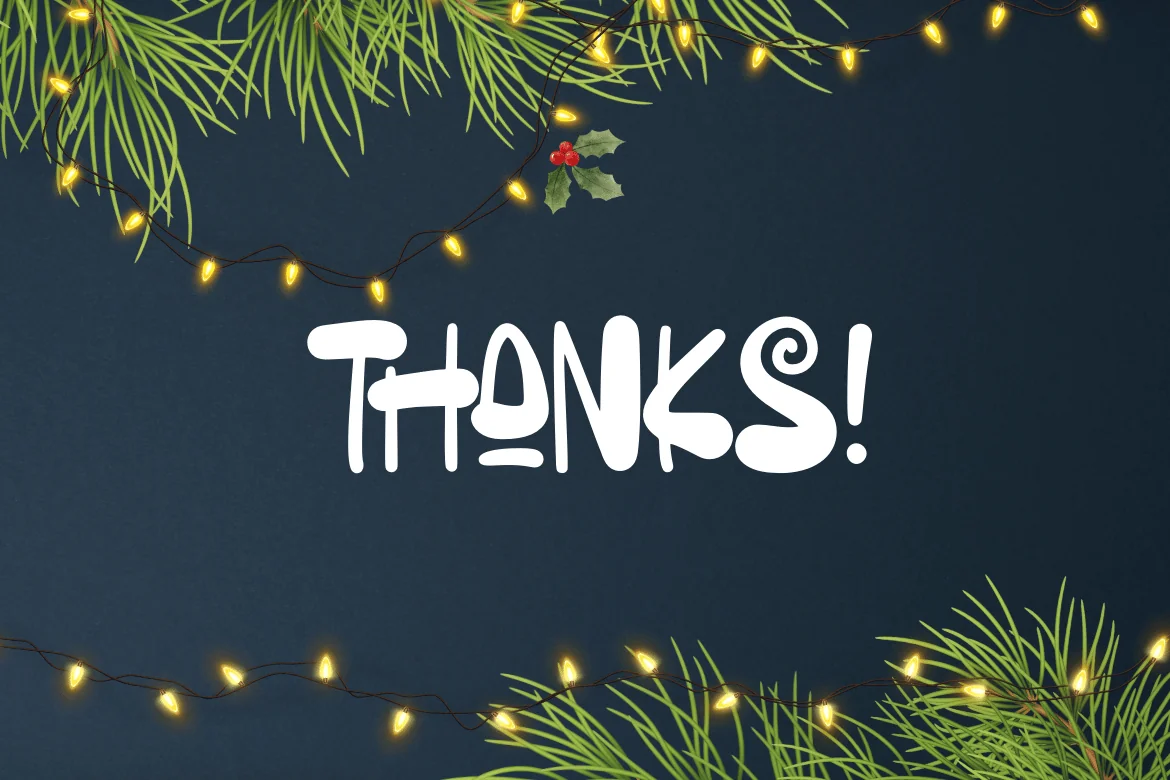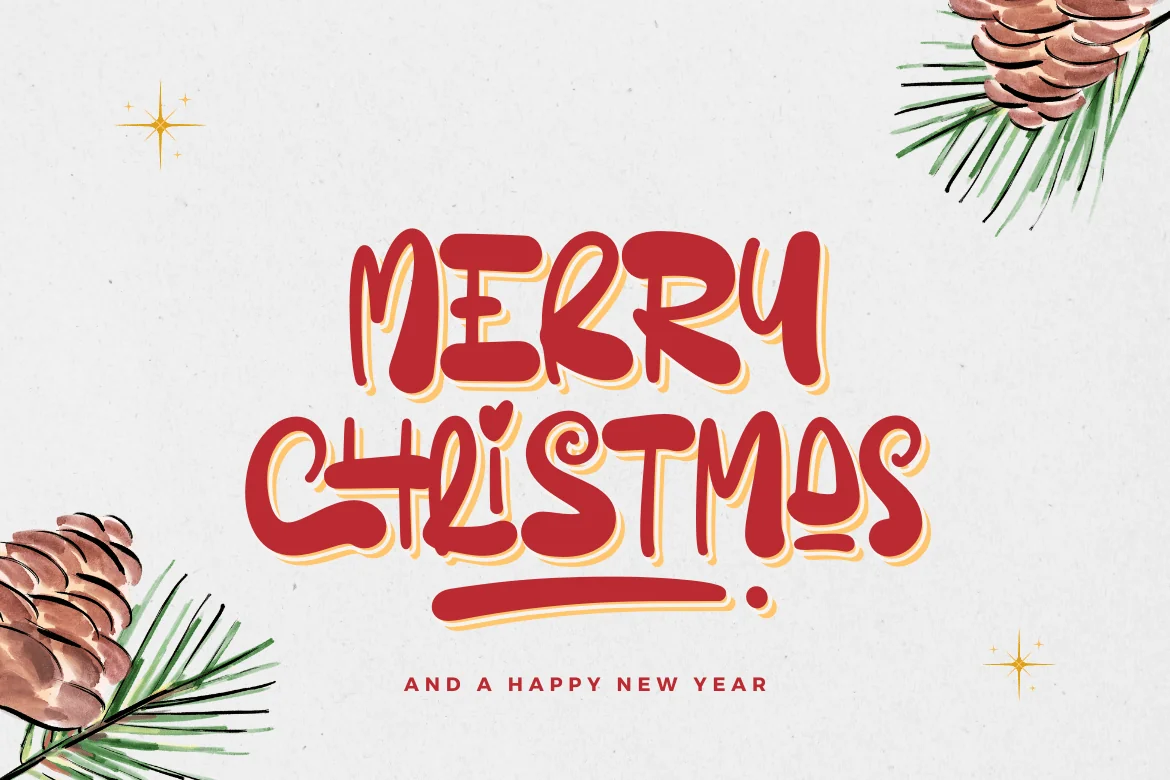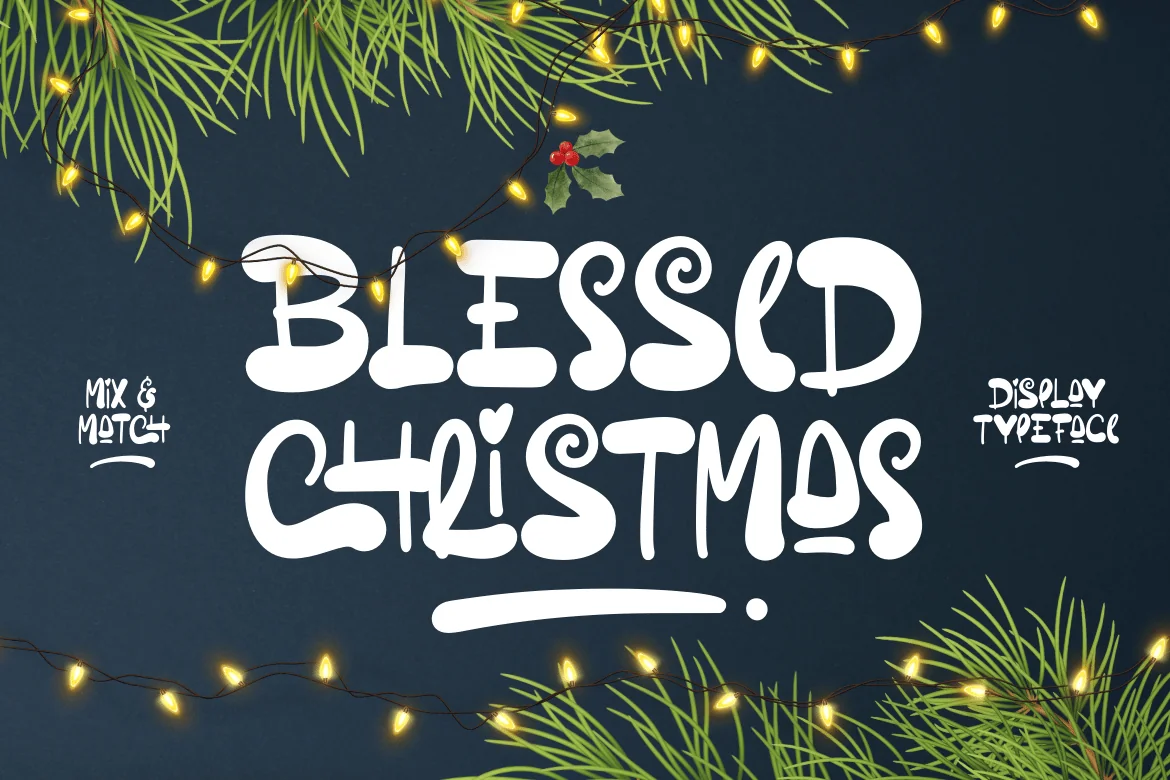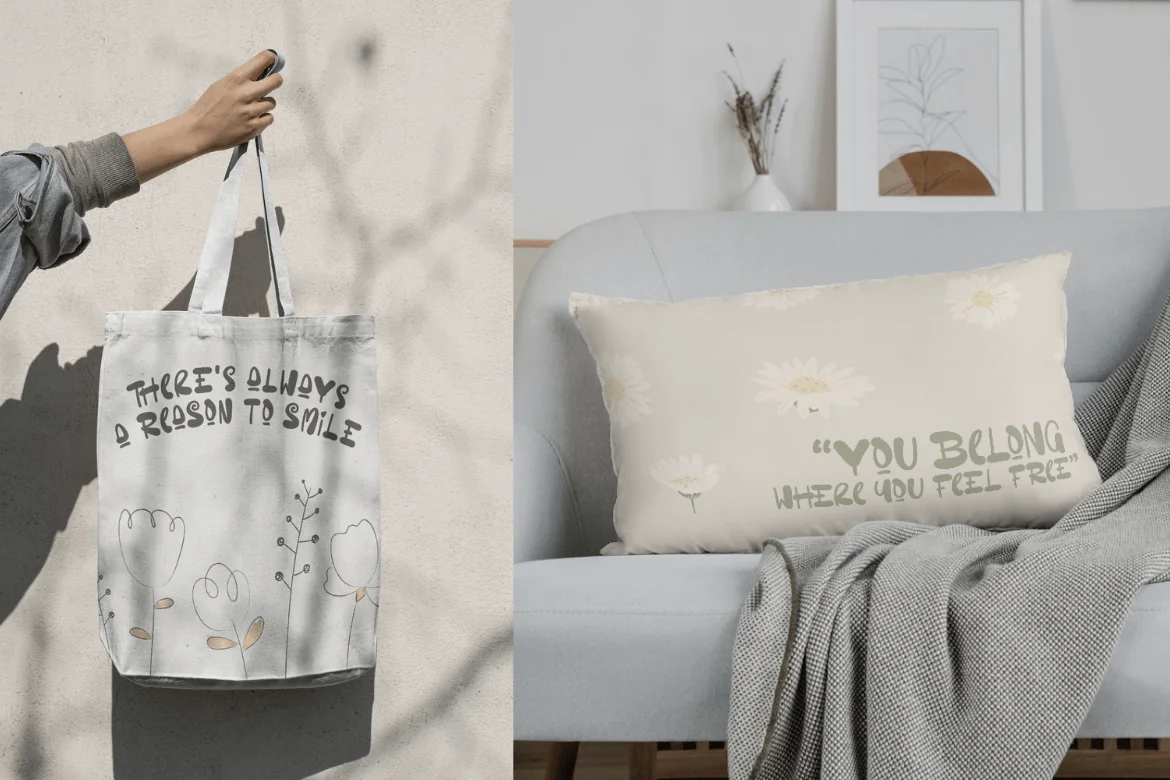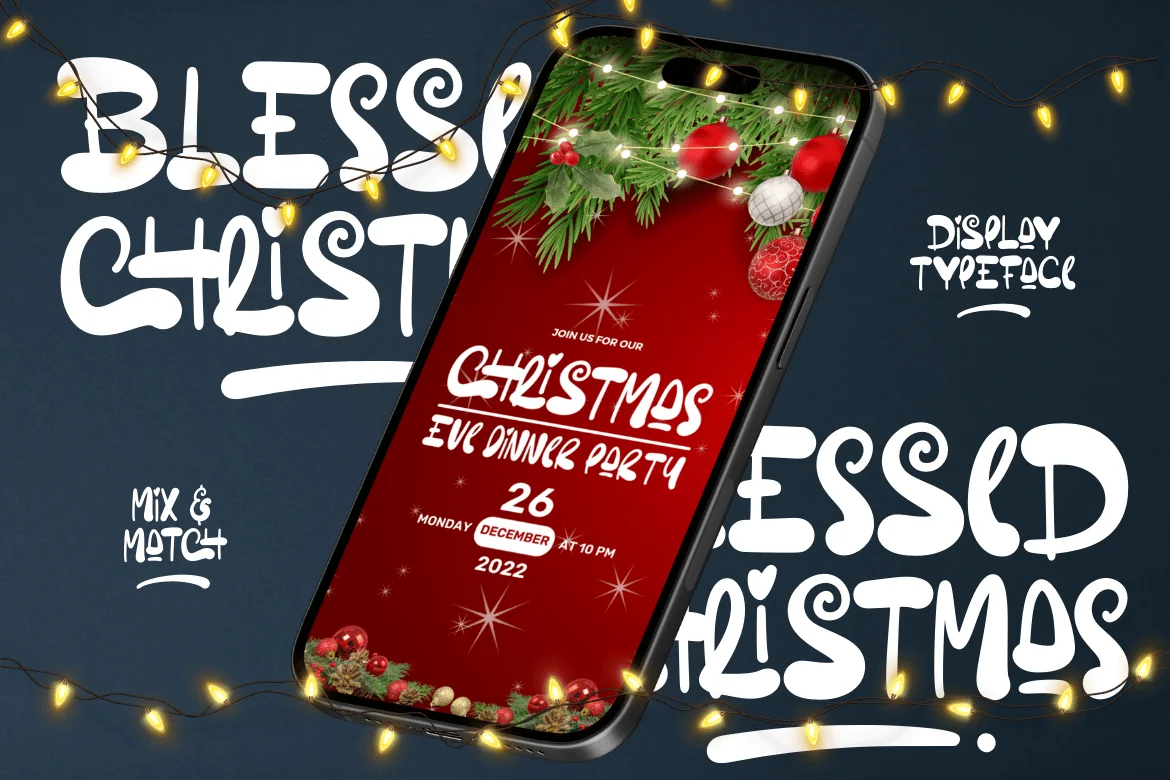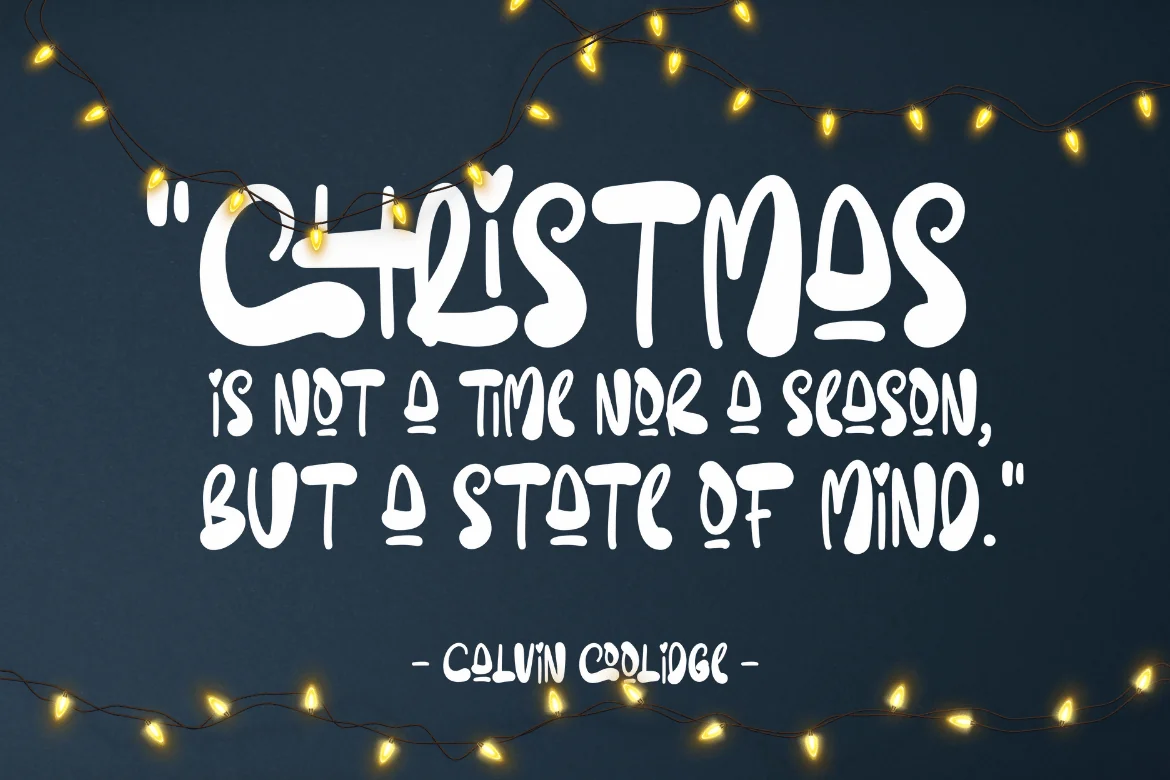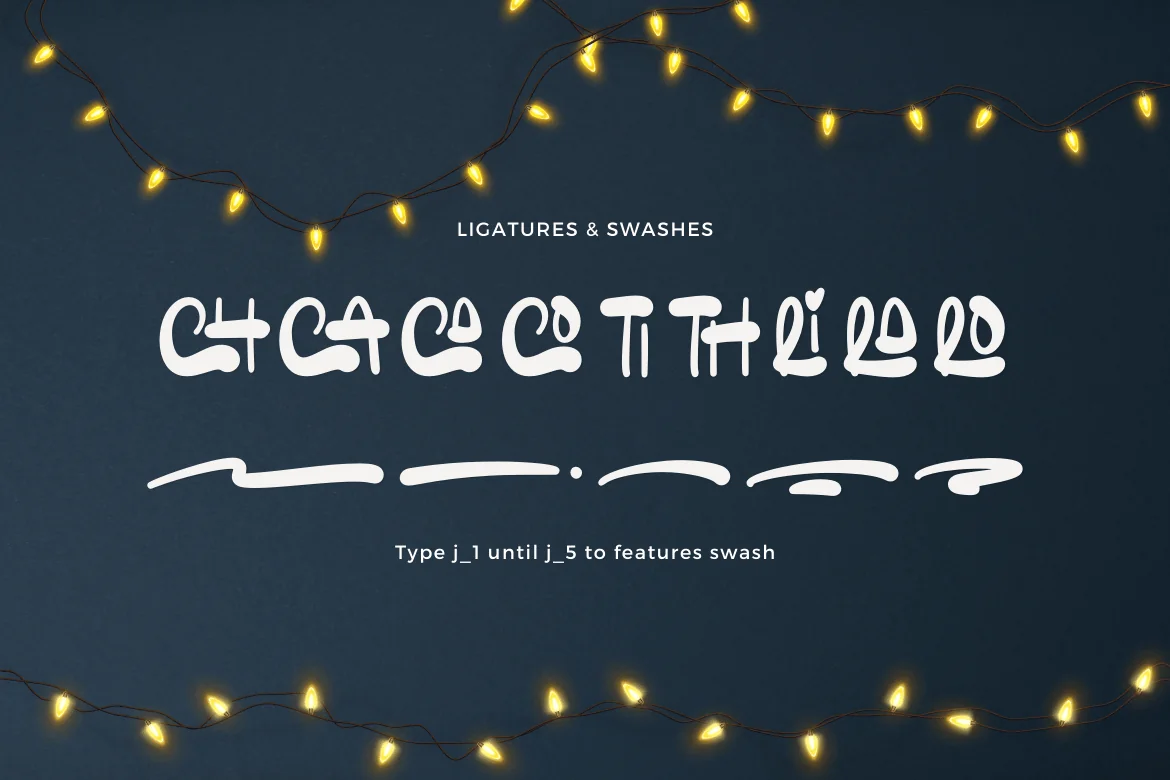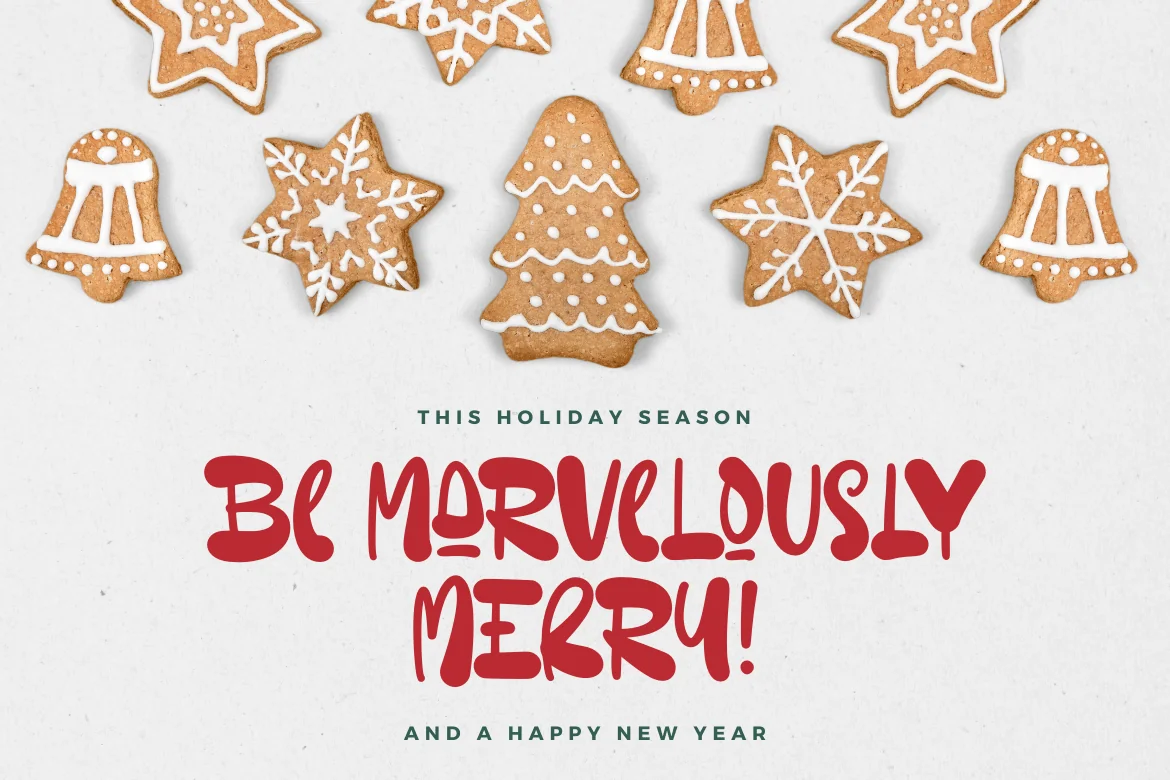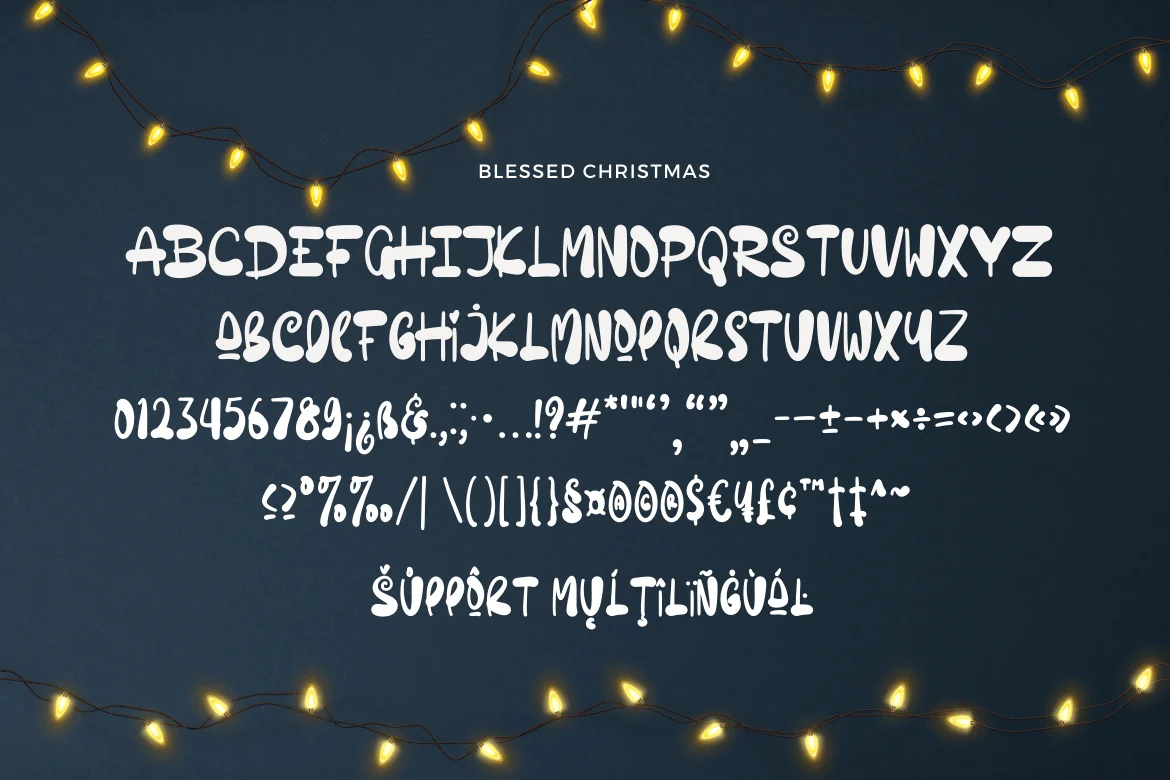
Blessed Christmas Display Font
Blessed Christmas is a versatile and festive typeface designed to bring the spirit of Christmas to your creative projects. This unique font is characterized by its mixable upper and lower case styles, making it perfect for adding a playful and decorative touch to your designs. It also features ligatures and a selection of swashes that can be seamlessly incorporated into your text, allowing for endless customization options.
Whether you’re creating holiday greeting cards, designing festive product packaging, or crafting Christmas-themed quotes and posters, Blessed Christmas is the perfect choice to infuse your designs with the spirit of Christmas. Its mixable styles, ligatures, swashes, and multi-language support make it a valuable addition to your design toolkit. Embrace the joy of the holiday season with this charming and versatile typeface.
- A set of uppercase and lowercase glyphs
- Number, symbol, and punctuation
- Ligatures and swashes